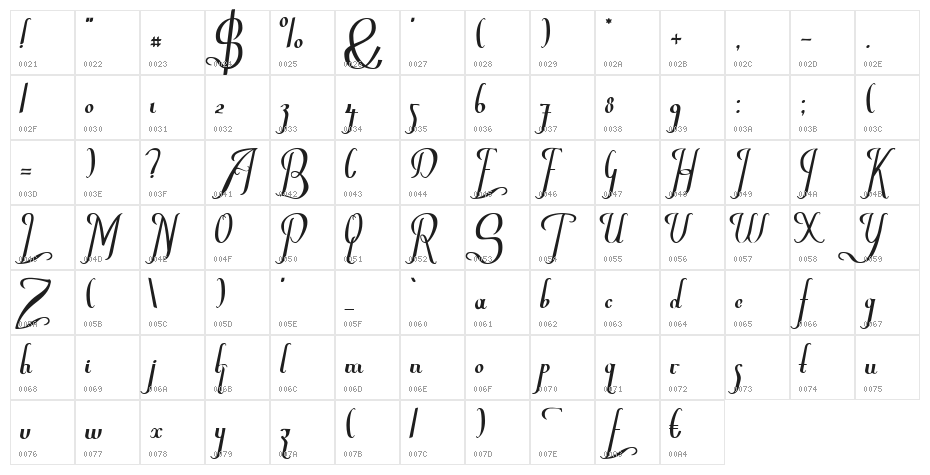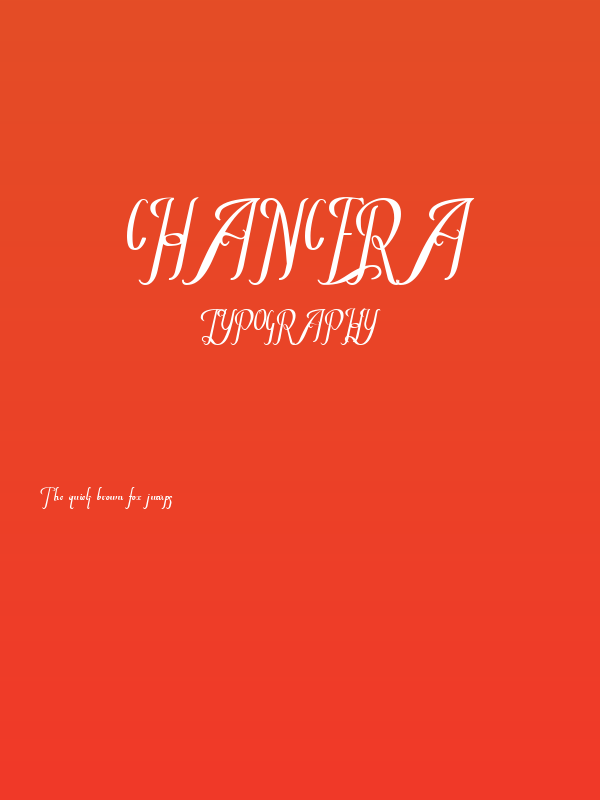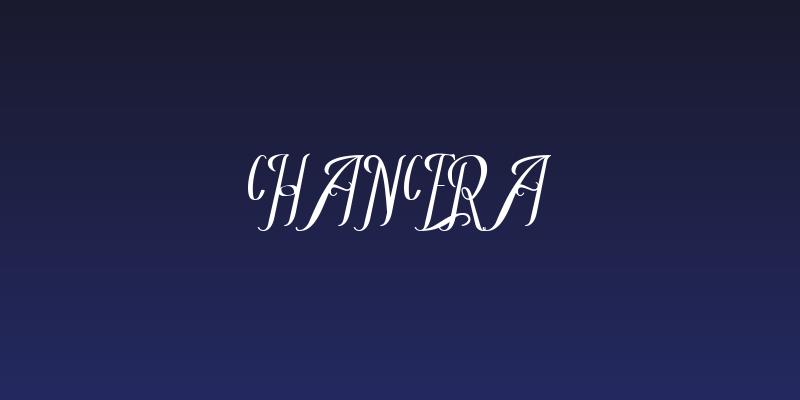
Chancera Font
Chancera Description
This font exhibits a classic and elegant style with intricate details that suggest a handwritten or calligraphic influence. The characters are gracefully designed with smooth curves and delicate strokes, giving it a sophisticated appearance. The uppercase letters are particularly ornate, while the lowercase letters maintain a more subtle elegance. The numerals and special characters are consistent with the overall aesthetic, ensuring a cohesive look across all text. This font is ideal for projects that require a touch of refinement and class.
| Proposed Projects | Ideal for wedding invitations, formal event programs, luxury brand logos, and elegant packaging designs. |